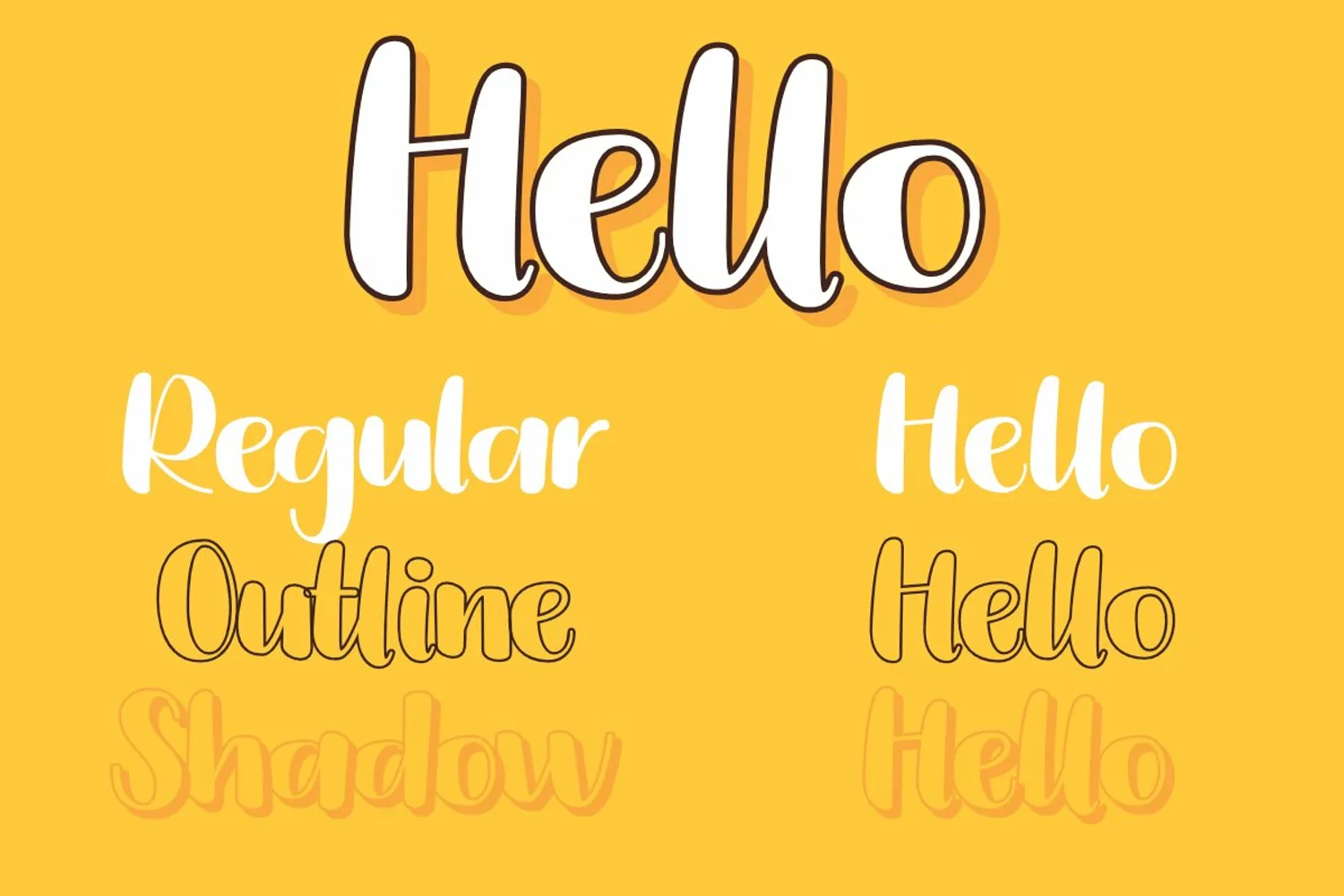
Hallo Budy
Introducing "Hallo Budy"
Hallo Budy Is a Handwritten Display Font With 3 Style (Regular,Outline and Shadow)
You Can Mix And Match for Your Awesome Project
This fonts is ideal for crafting, branding and decorate your any project. This fonts are perfect for wedding invitation or your blog. Also with their help, you can create a logo or beautiful frame for your home. Or just use for your business, book covers, stationery, marketing, magazines and more.
- Number & Punctuation
- Multilingual Language
- Alternate